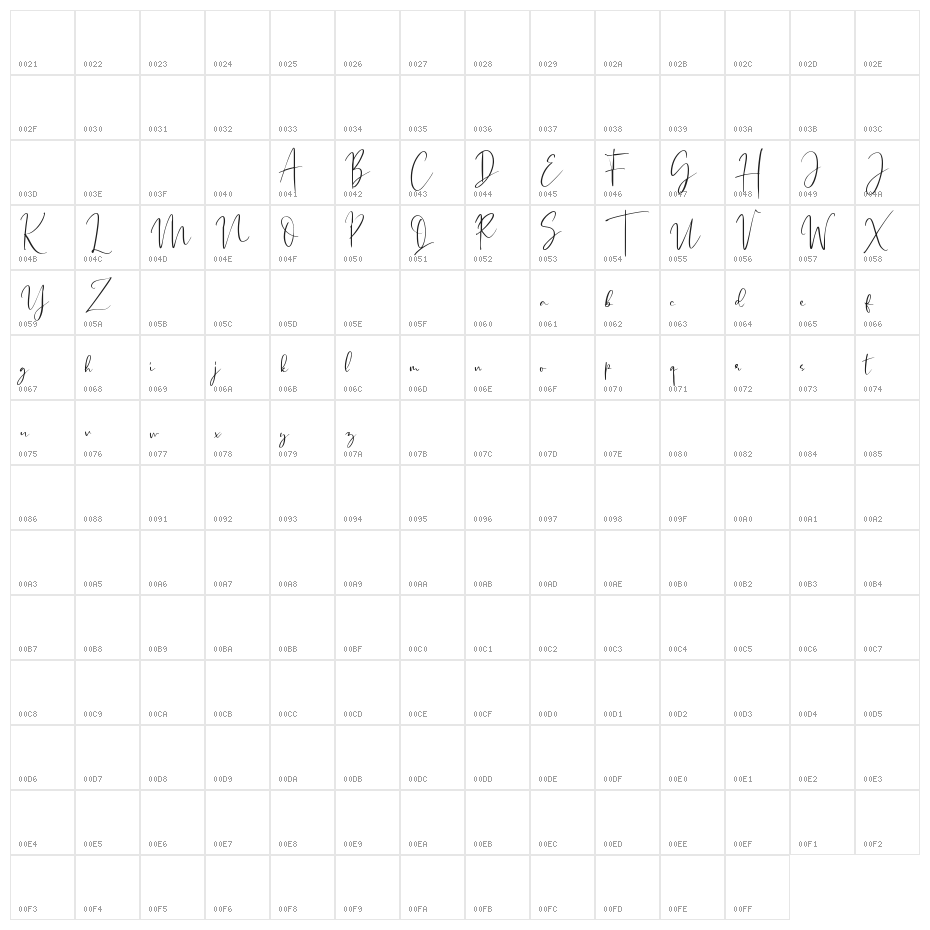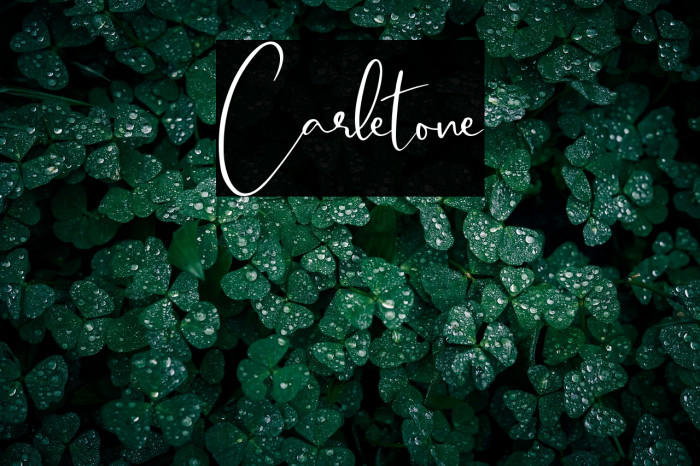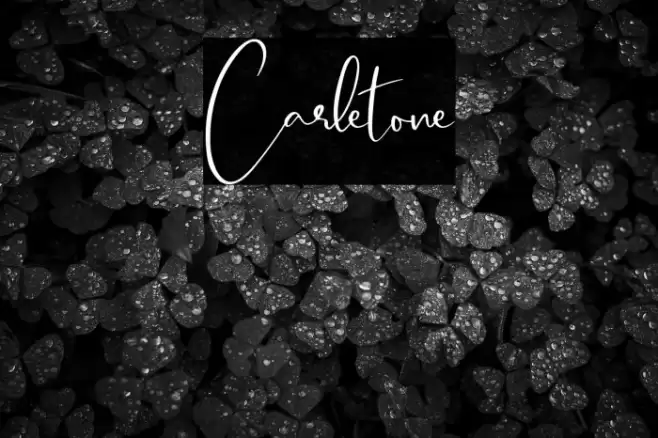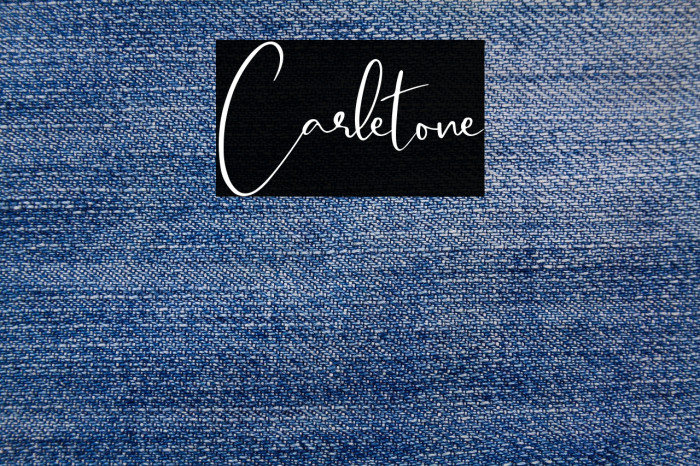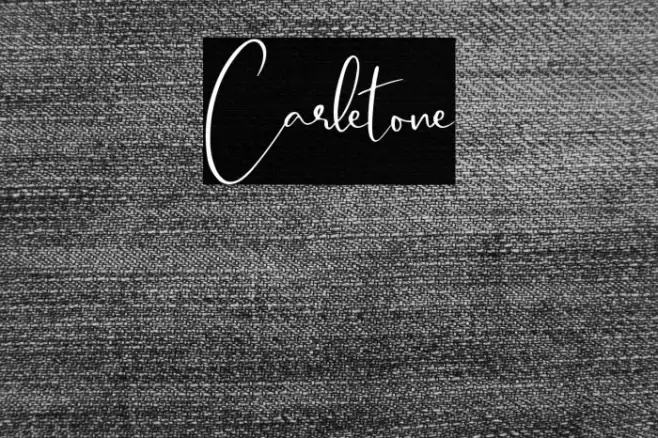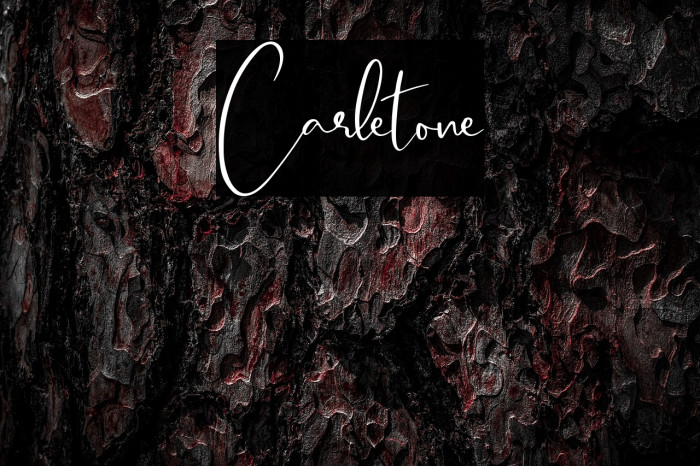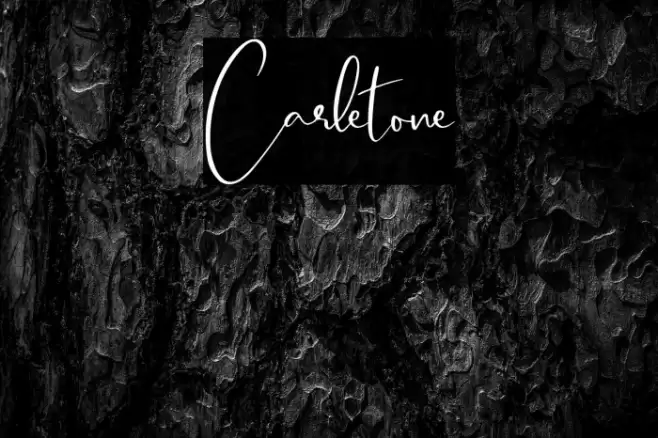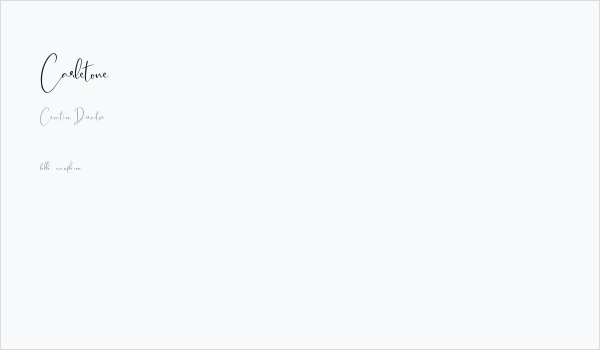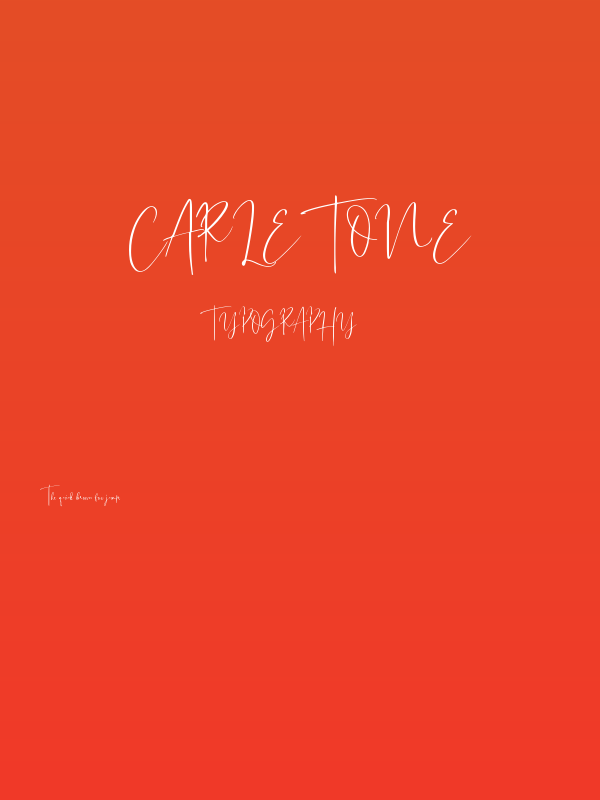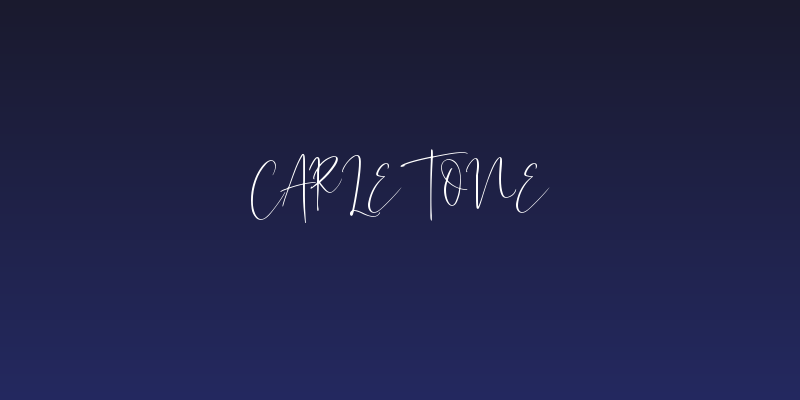
Carletone Font
Carletone Description
This elegant script font features a fluid, handwritten style that exudes sophistication and charm. The letters are gracefully connected, with sweeping ascenders and descenders that add a touch of whimsy. The uppercase letters are particularly striking, with dramatic loops and flourishes that make them stand out. The lowercase letters maintain a consistent flow, enhancing readability while preserving the font's artistic flair. The overall design is balanced and harmonious, making it suitable for a variety of creative applications. Its delicate strokes and subtle variations in line thickness give it a refined appearance, perfect for projects that require a personal touch.